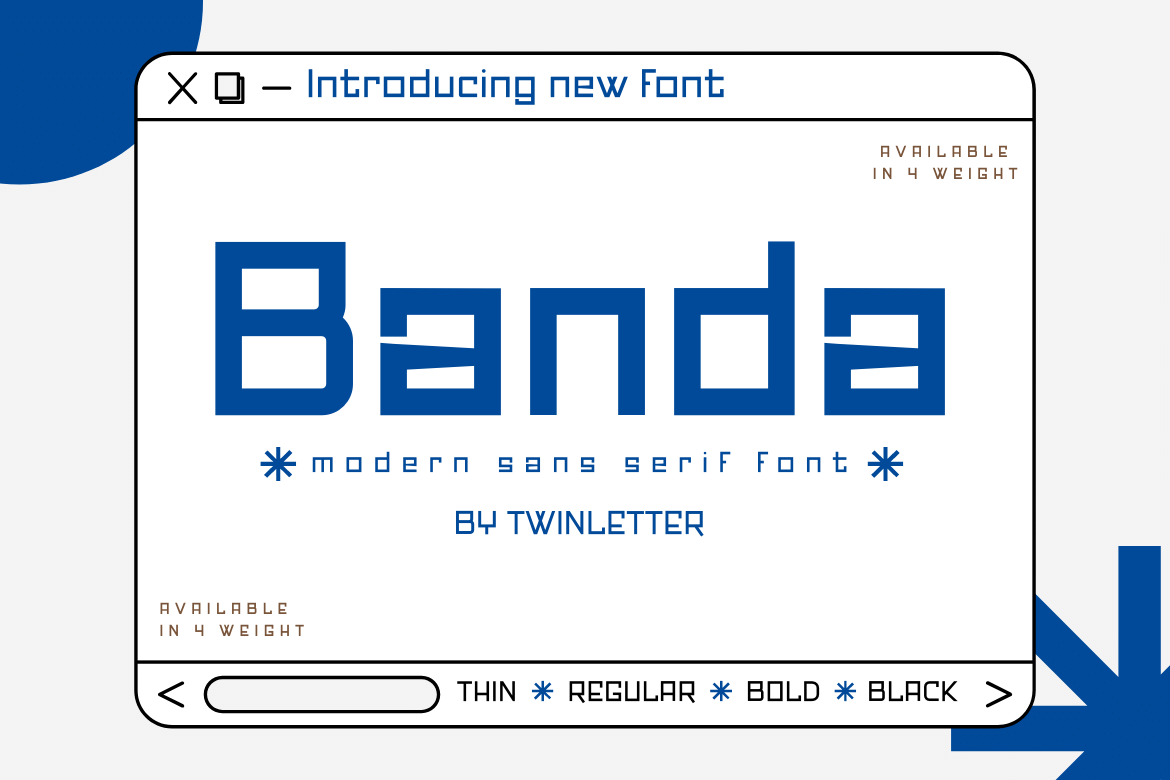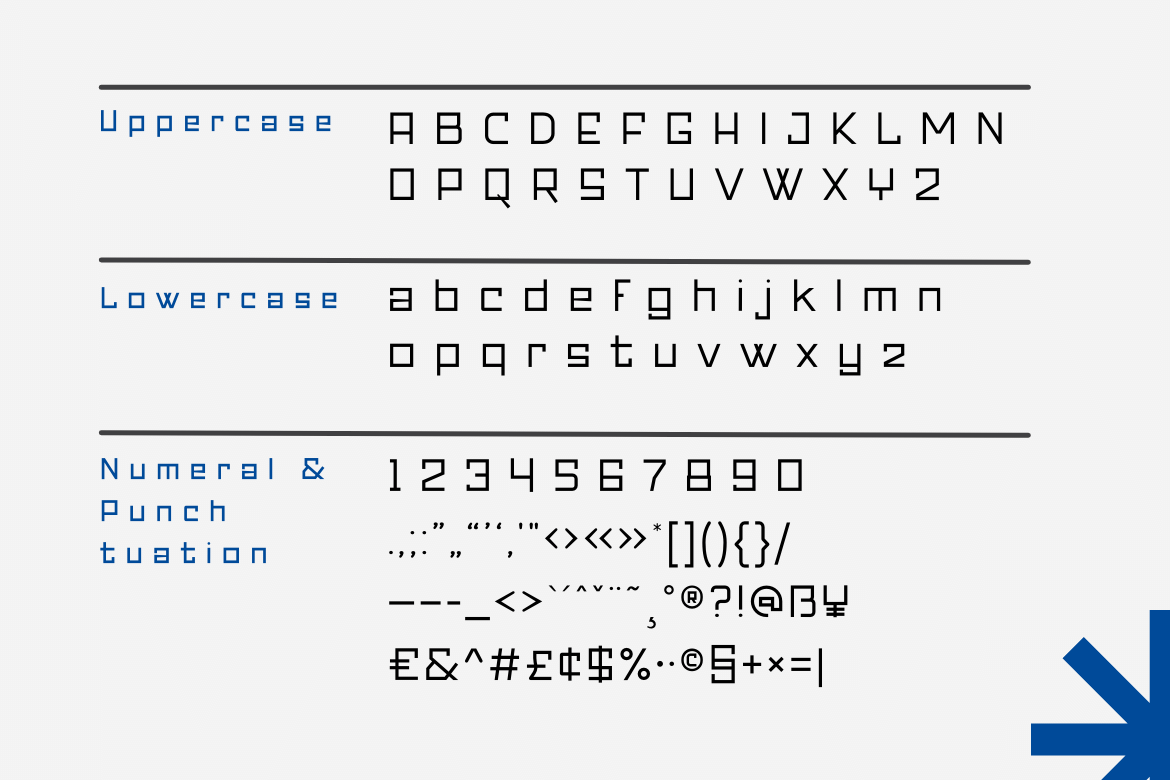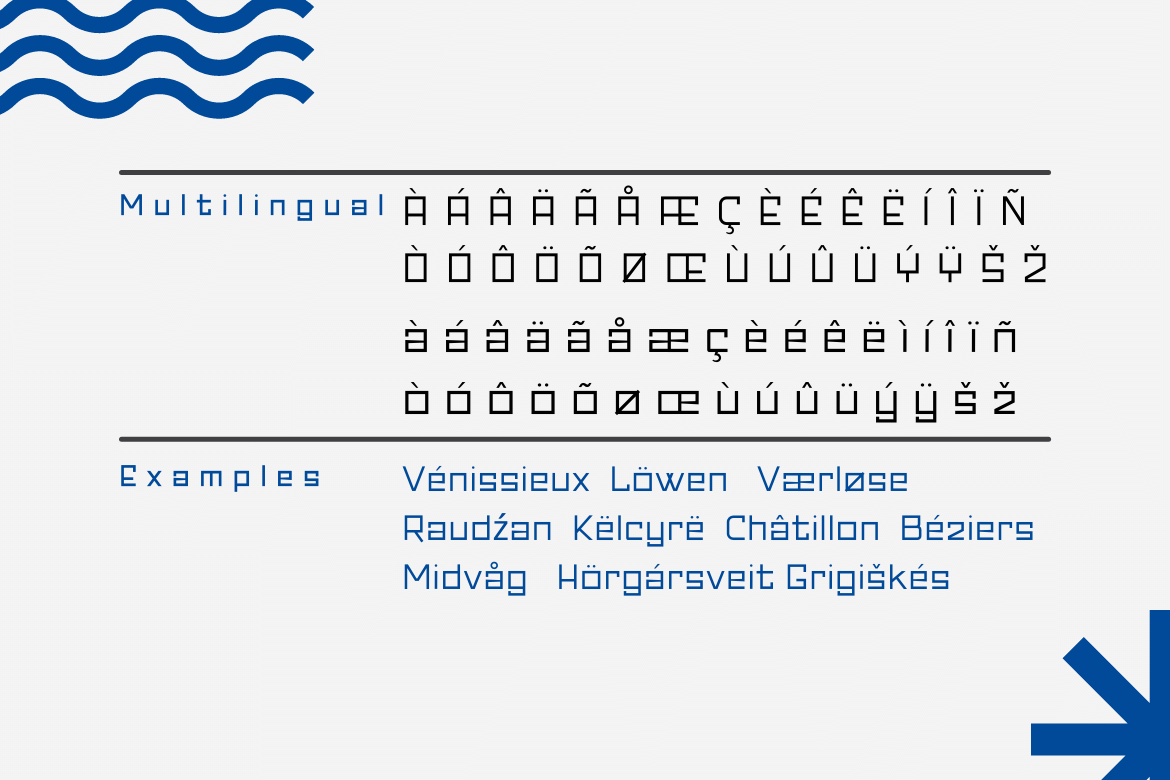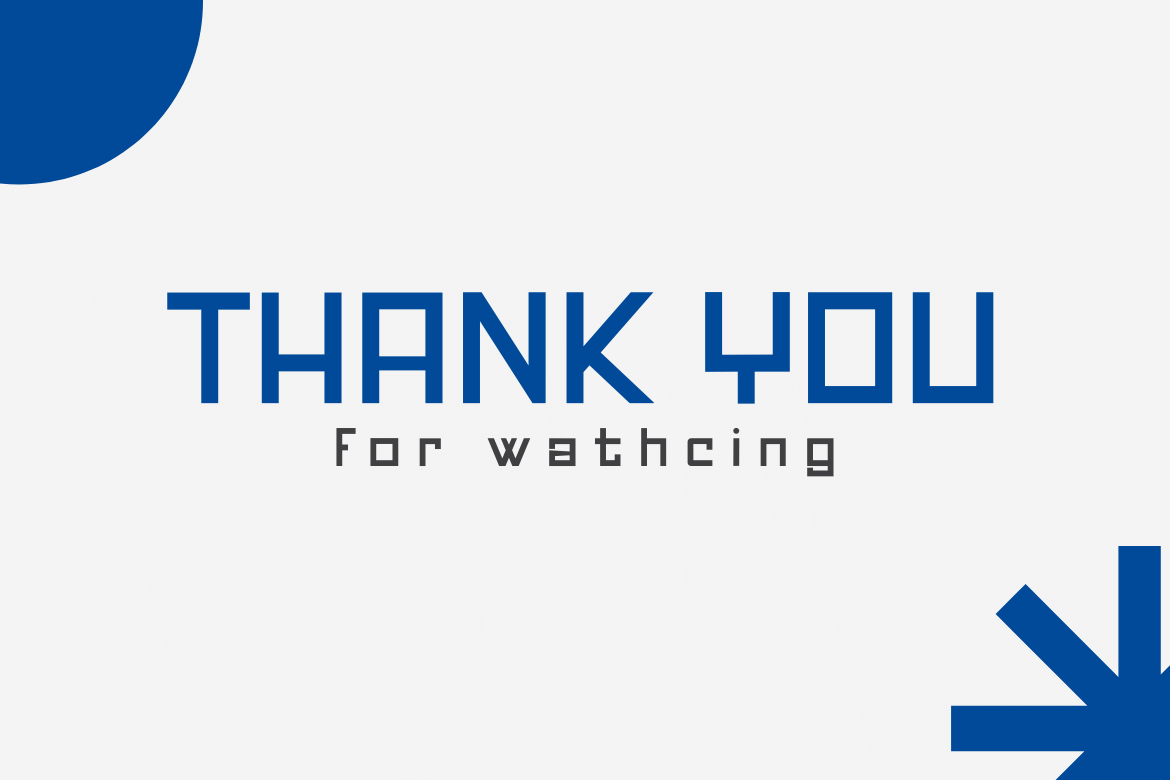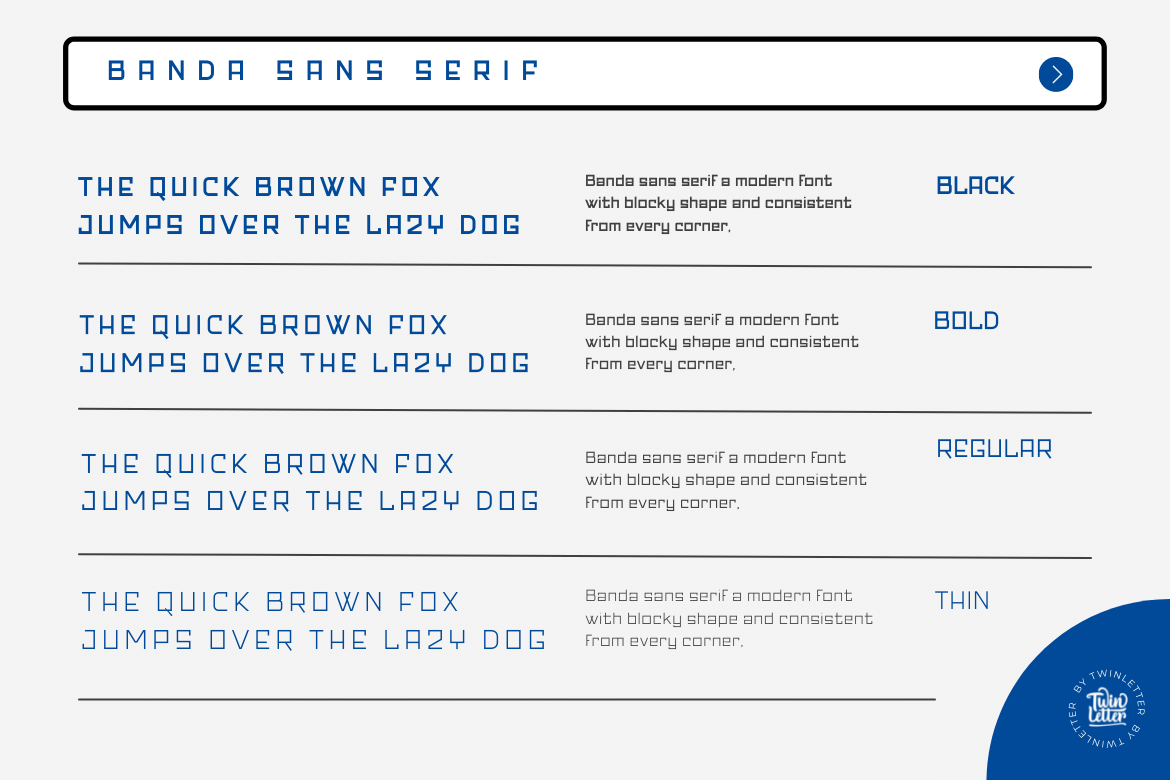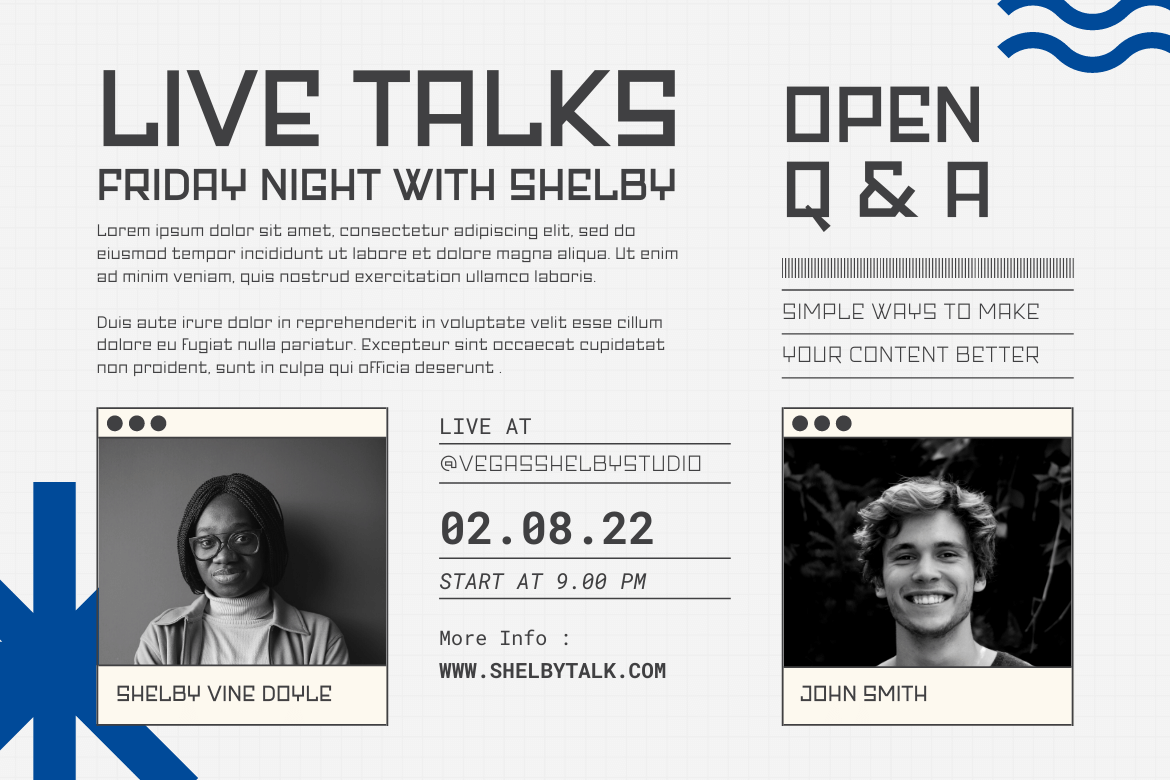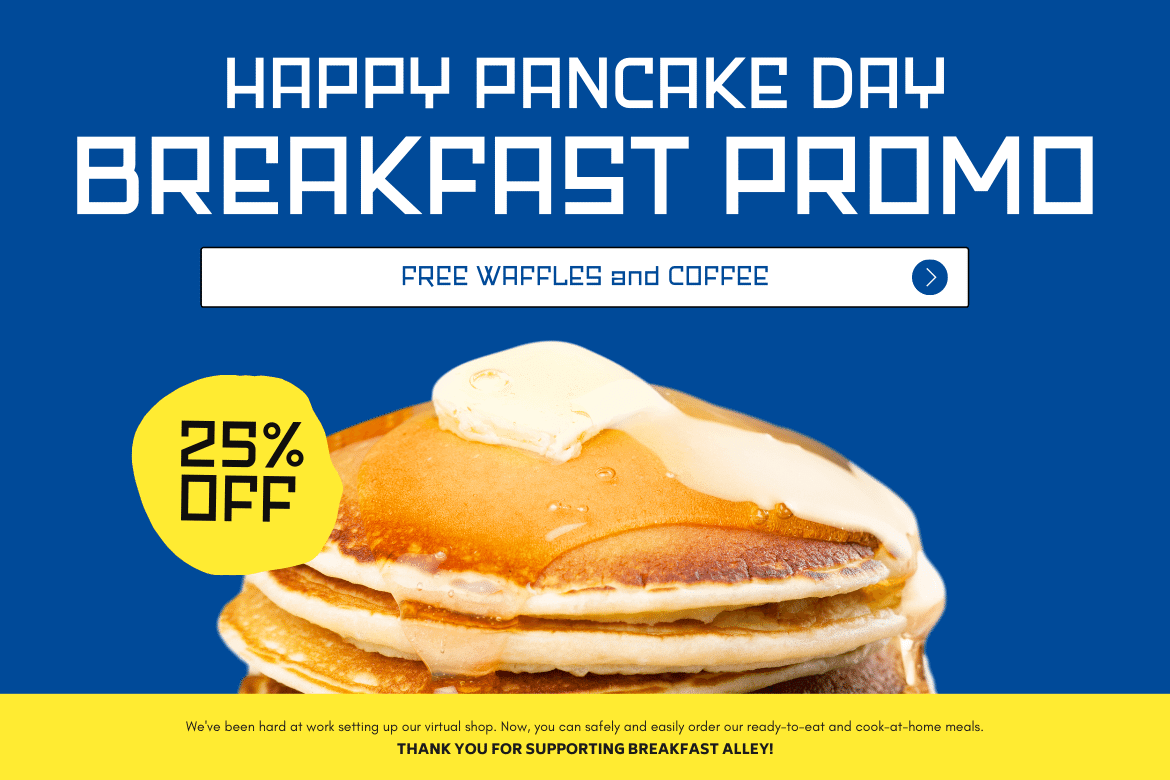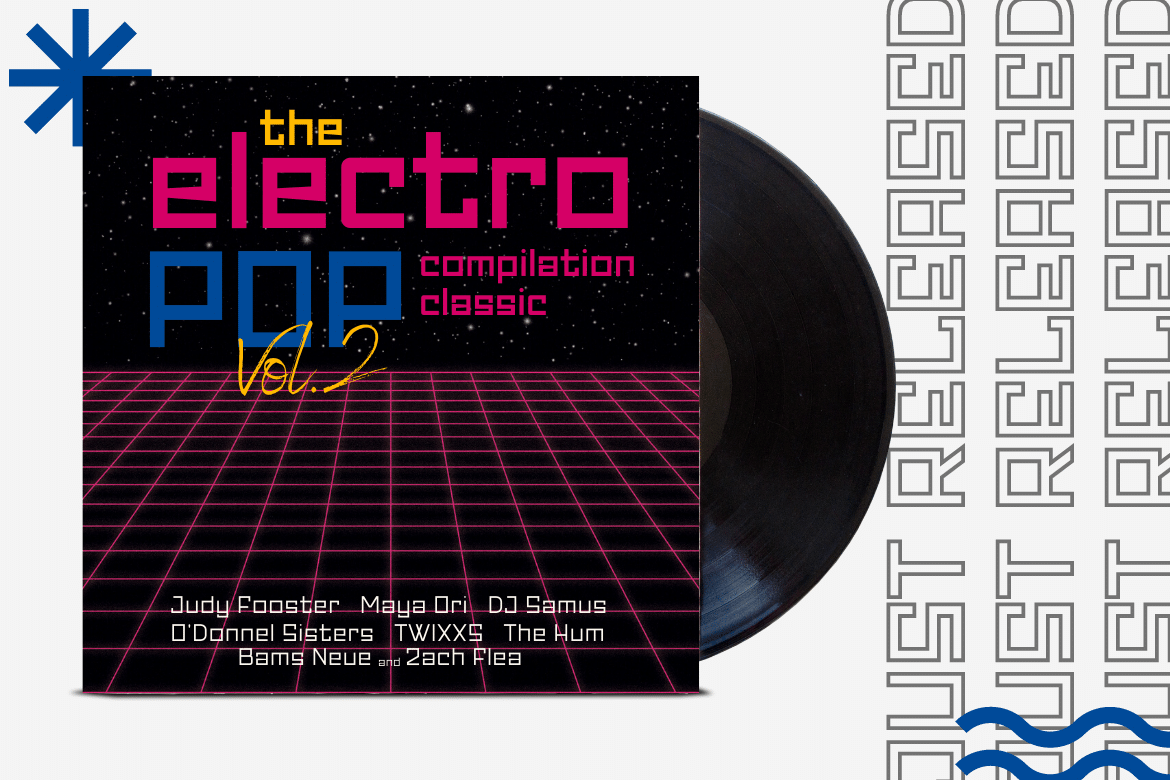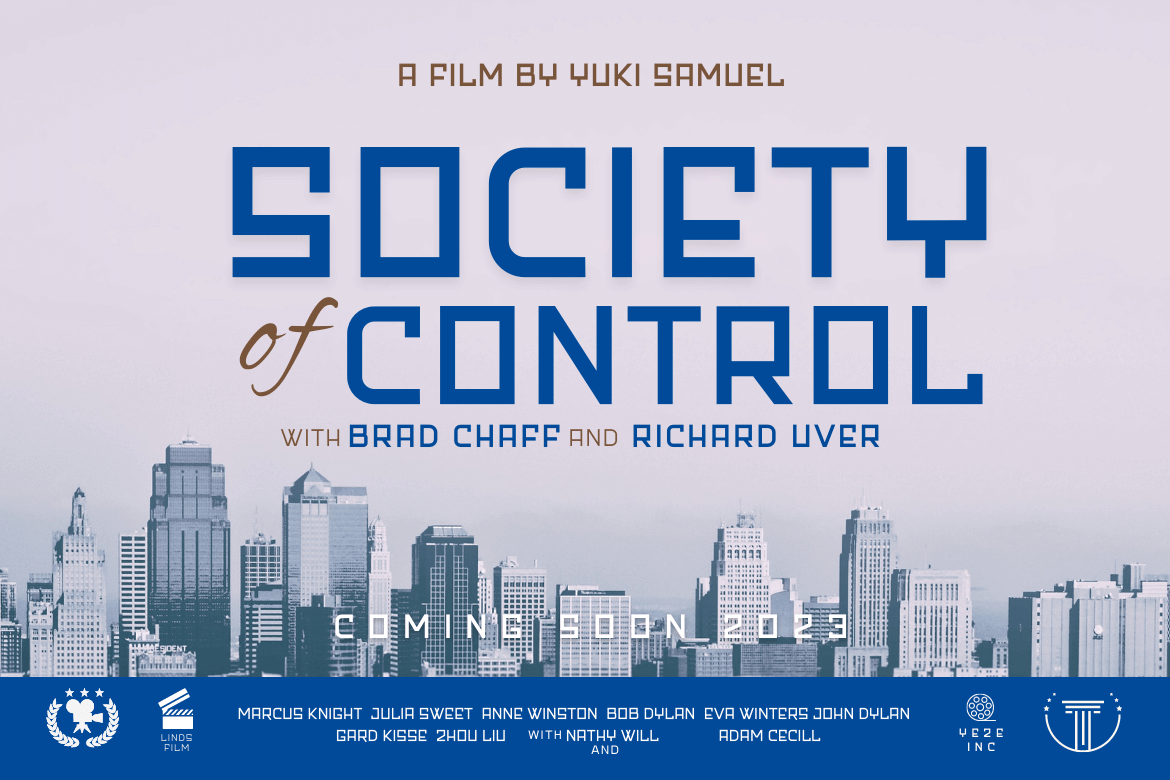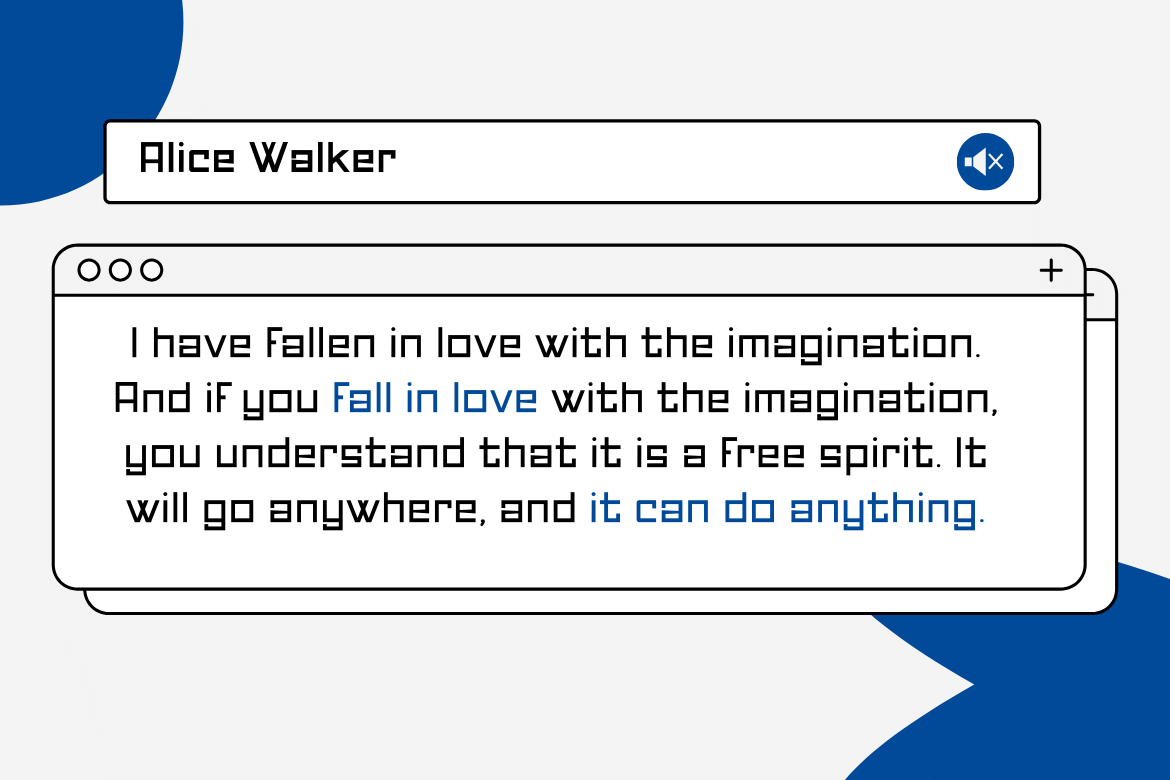
Banda
Banda is our newest san serif, and it has amazing fonts for your projects. This typeface is ideal for branding, advertising, posters, banners, packaging, headlines, magazines, websites, logo designs, banners, social media designs, and many other uses. Light, Regular, Medium, and Thick are the four available weights. It features a clean and beautiful aesthetic that can help your project appear more serene, unique and grab the attention of the audience.
• Fonts include multilingual support for; Afrikaans, Albanian, Croatian, Czech, Danish, Dutch, English, Estonian, Finnish, French, German, Hungarian, Italian, Norwegian, Polish, Portuguese, Slovak, Slovenian, Spanish, Swedish